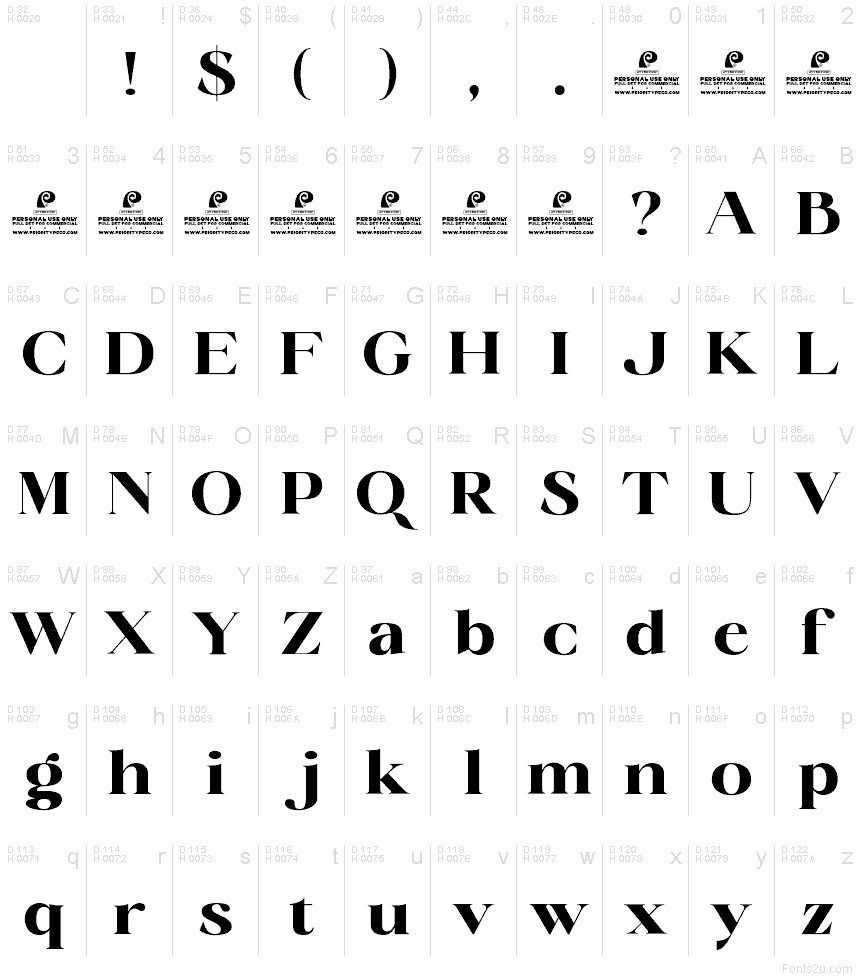
Radiant Charisma DEMO Bold
Radiant Charisma font by Prioritype Co offers a sophisticated serif style marked by its bold weight and expanded width. Its elegant and classic design channels an air of authority and sophistication, with a distinct vintage appeal seen across its characters. The timeless beauty showcased in this font lies in its traditional letterforms that speak to audiences.